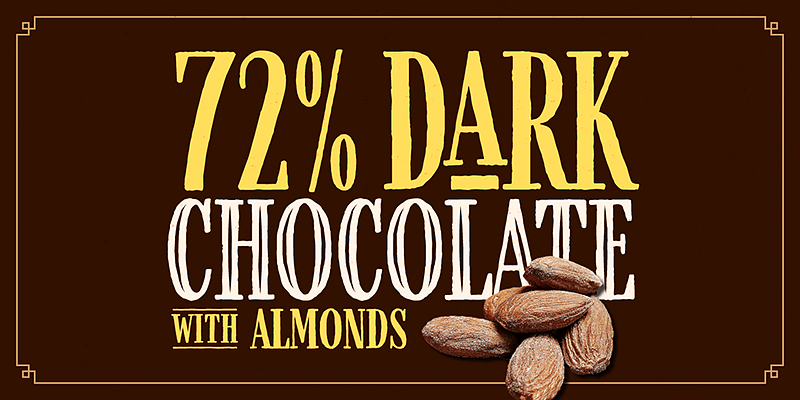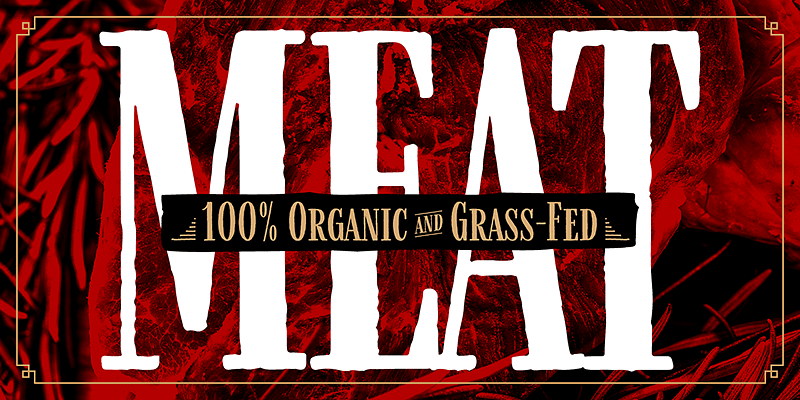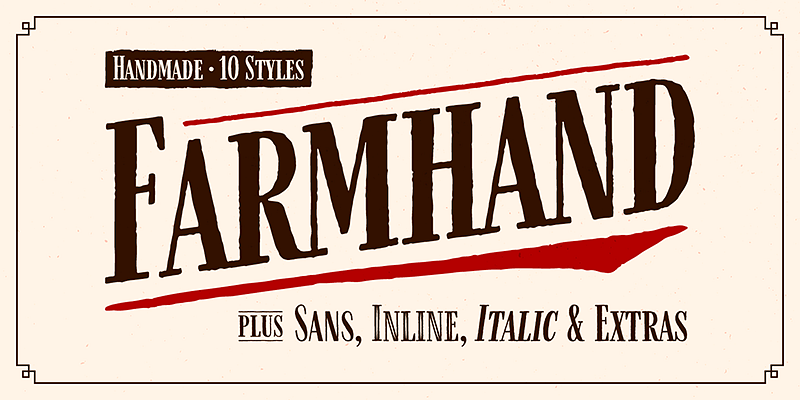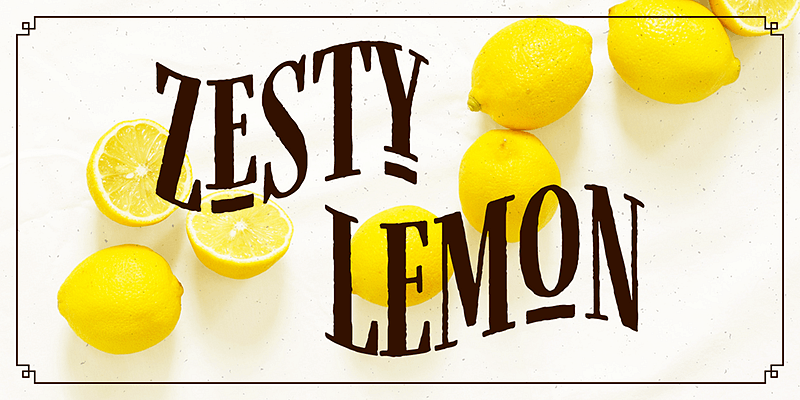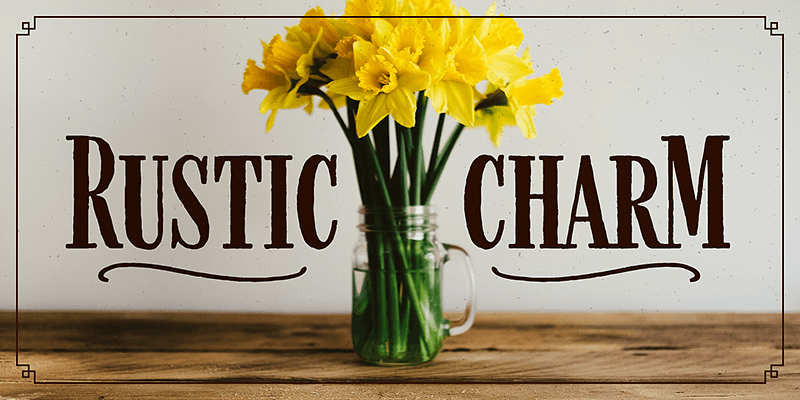
Farmhand is a textured, hand drawn, condensed serif font suited for display titling. An all-caps typeface with individually drawn small caps for lowercase.